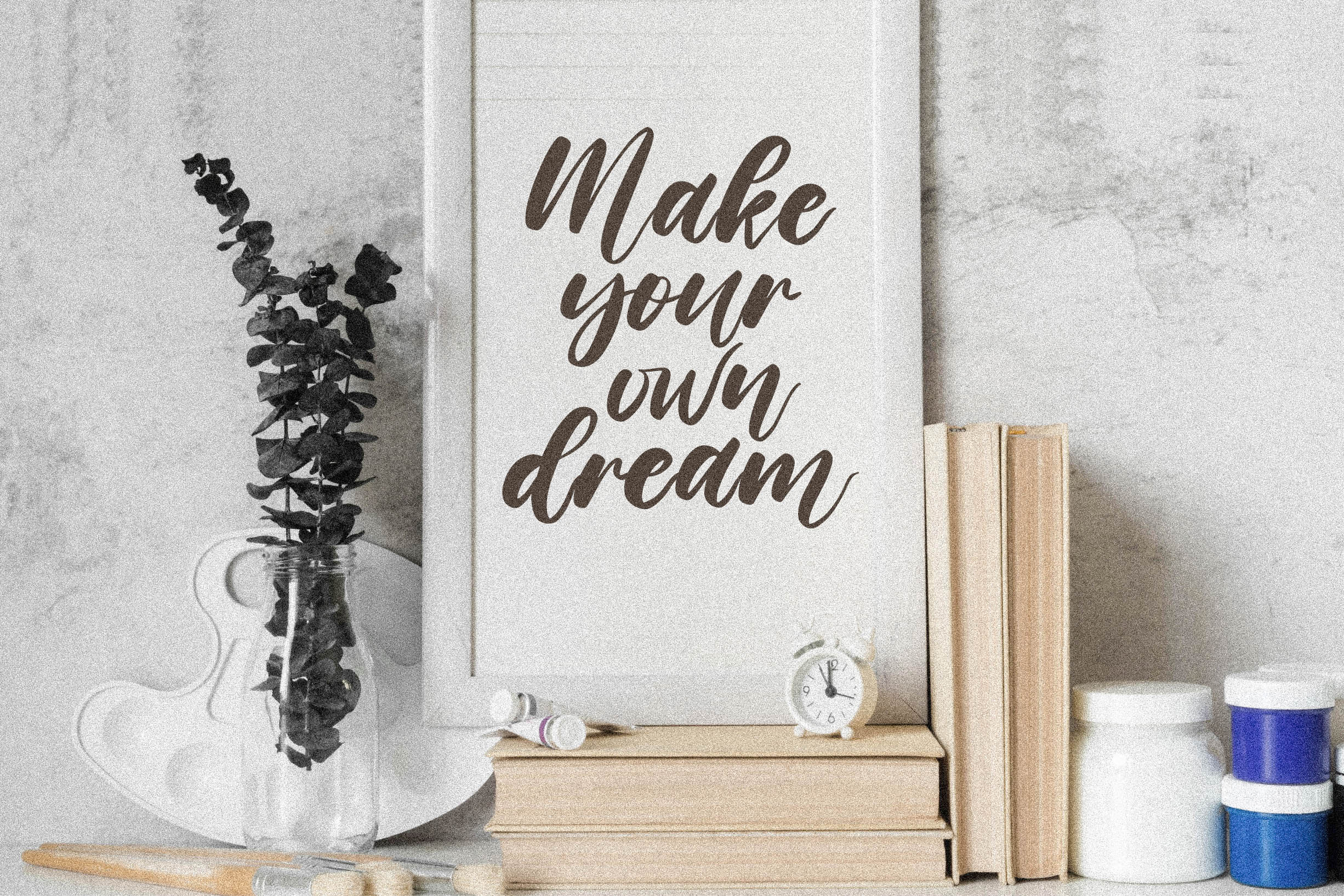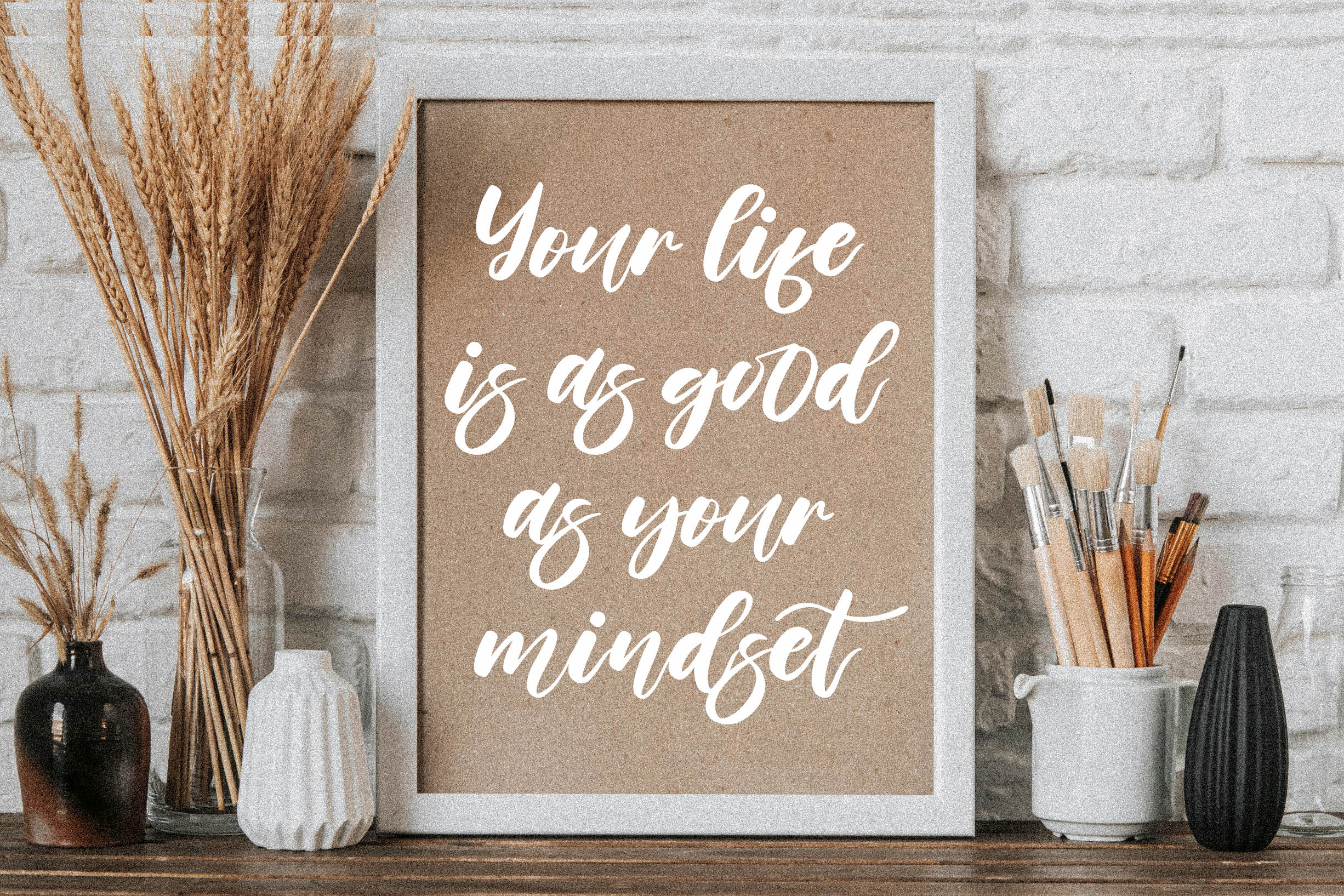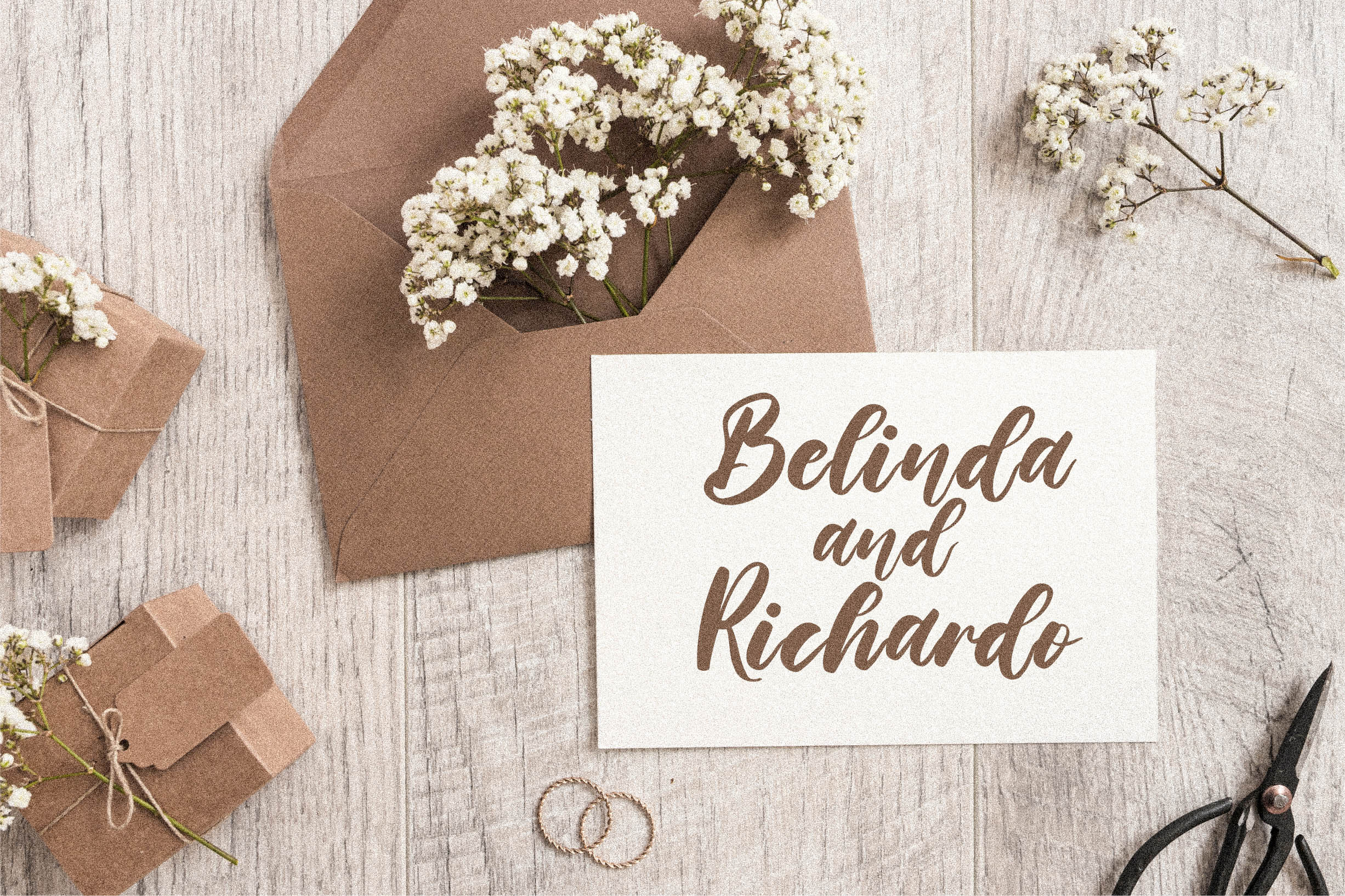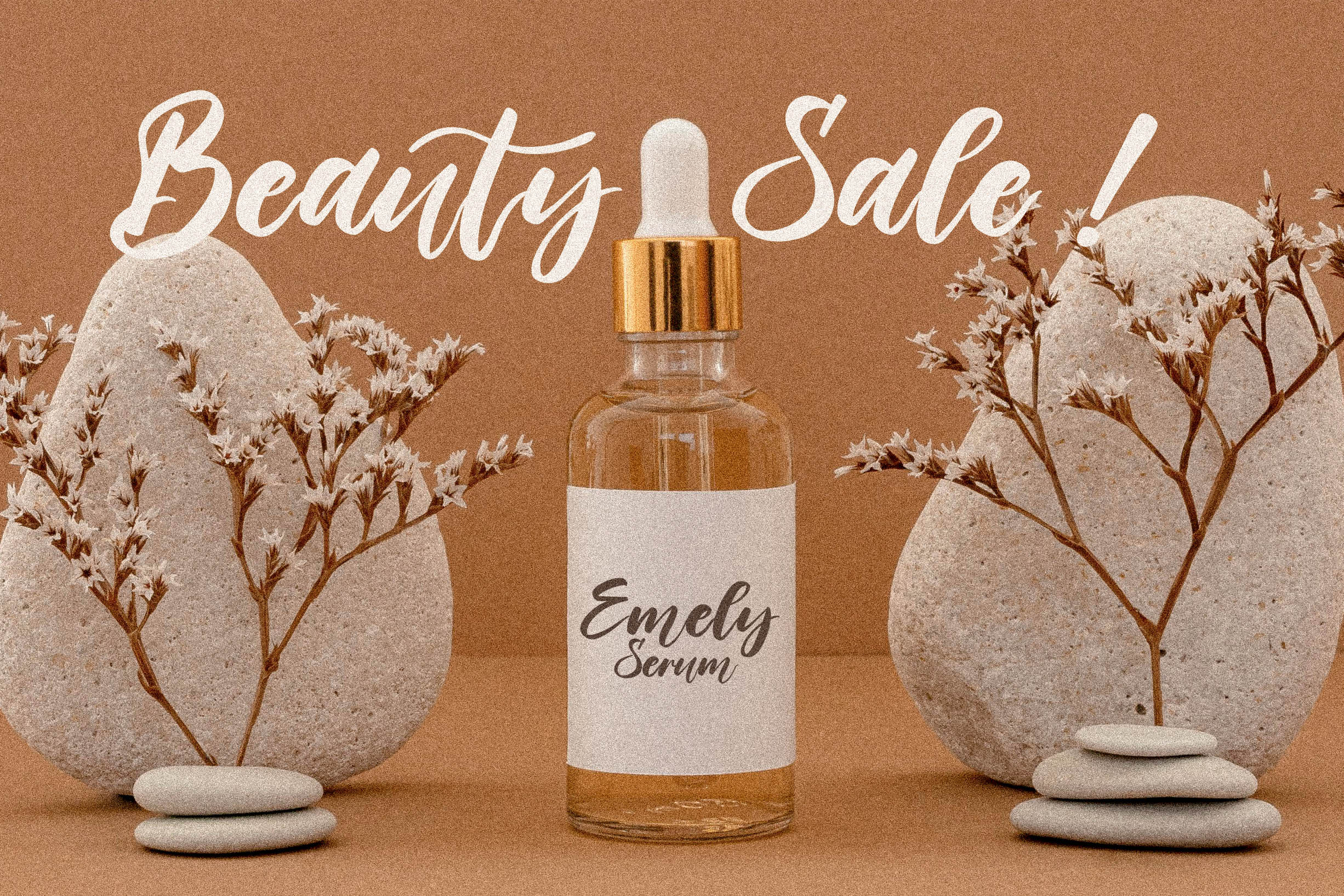
Helloria Abigail Font
Helloria Abigail Script Font
This is a handwritten font, suitable for any projects such as: logos, branding projects, homeware designs, product packaging, mugs, quotes, posters, shopping bags, t-shirts, book covers, name card, invitation cards, greeting cards, label, photography, watermark, special events, and all your other luxury projects that need a handwritten taste.